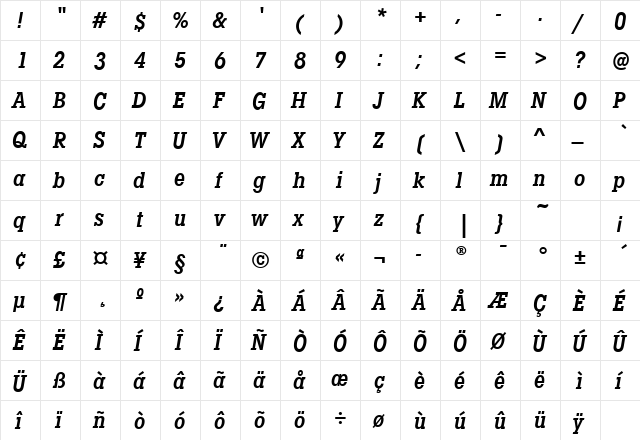
LubalinGraphCdITCTT Bold Font Preview
LubalinGraphCdITCTT Bold
Design Context for LubalinGraphCdITCTT Typeface
LubalinGraphCdITCTT is a composed and adaptable typeface that performs quietly and consistently across a wide range of design contexts. The heavy weight commands attention and anchors typographic hierarchies.
Pro Tip: Use LubalinGraphCdITCTT in both headline and body roles to test its range before committing to a single application.